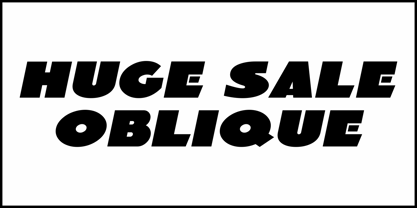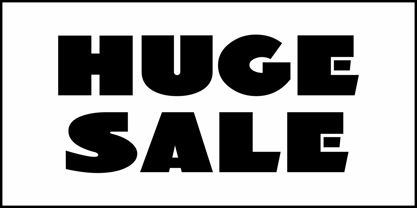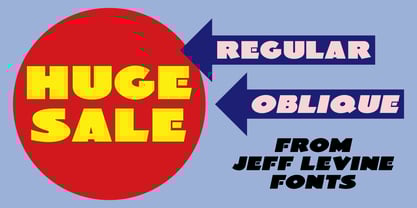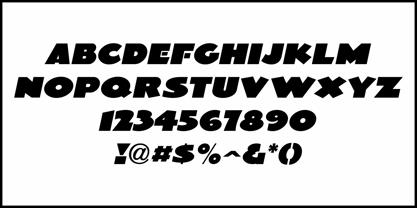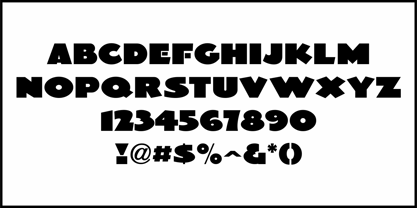
Huge Sale JNL
by Jeff Levine
Big, wide and extra bold sans serif poster lettering was found within the pages of the Speedball 12th Edition Textbook from 1935.
This served as the model for Huge Sale JNL, which is available in both regular and oblique versions.